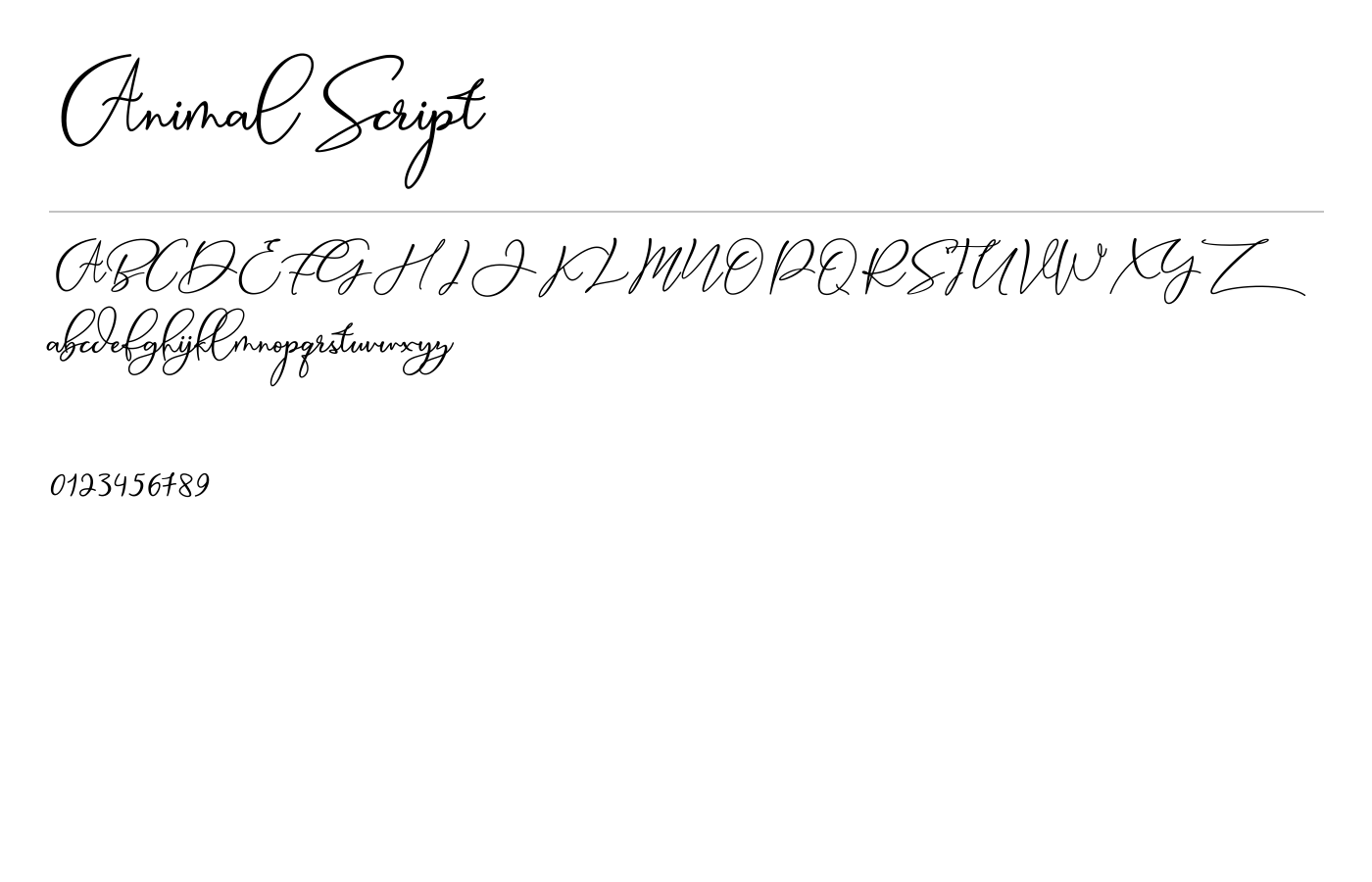
Animal Script is an elegant, delicate script font featuring thin, flowing strokes with a natural, hand-drawn feel. Its light weight and graceful letterforms create a sophisticated and artistic vibe, perfect for luxury branding, invitations, and stylish logos that need a personal touch. This font works best in display uses where its fine details and unique character shapes can truly shine.
Animal Script Font
About Animal Script Font
| Designer | Moly Mol |